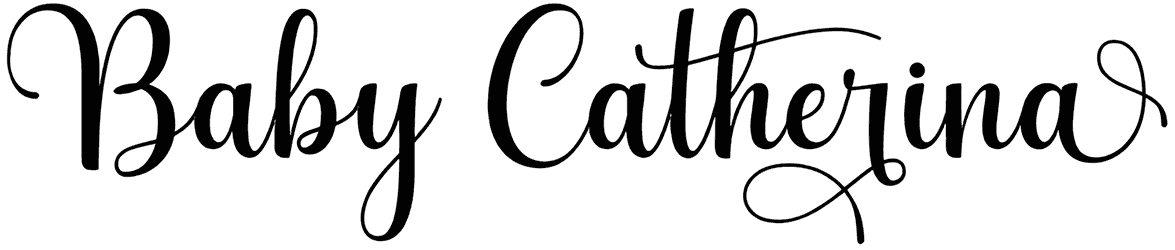
Baby Catherina Font
Baby Catherina is an ideal choice if you’re looking for a calligraphic font for feminine projects and need some exaggerated flair.
The elegance and charm in the design of this romantic font have made it able to inject certain credibility into the writings in packaging, books, albums, and the fashion industry. So if you are a brand newbie looking to be attractive, use Baby Catherina to create a significant effect.